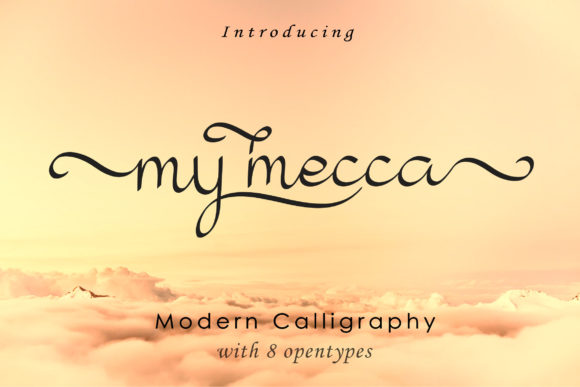
Prepare to be captivated, font enthusiasts! My Mecca Font, a creation of aminmario, is not just another script font; it's an artistic journey that intertwines the beauty of hand-lettering with the sleekness of modern design. Its exquisite curves, inspired by the calligraphic masters, blend harmoniously with a contemporary twist, making it a visual masterpiece that elevates any project it adorns.
Step into a world of creativity where imagination flourishes, and let My Mecca Font be your guide. Its versatility is boundless, inspiring you to explore uncharted territories of design. Whether you're crafting logos that exude personality, adding a touch of elegance to your watermarks, or simply seeking a captivating font for your quotes, My Mecca Font is your perfect partner.
Unlock the door to endless possibilities with My Mecca Font. Picture your designs adorned with this modern calligraphy script, captivating your audience with its natural writing style. Whether it's an album cover that tells a story, a business card that leaves a lasting impression, or a magazine spread that demands attention, My Mecca Font weaves its magic, transforming your creations into works of art.
Don't settle for ordinary when you can embrace the extraordinary. My Mecca Font is the key to unlocking your creative potential, inviting you to embark on a journey of visual storytelling that will leave your audience spellbound. Join the ranks of savvy designers who recognize the transformative power of My Mecca Font, and let your imagination run wild as you create designs that inspire, engage, and ignite the senses.